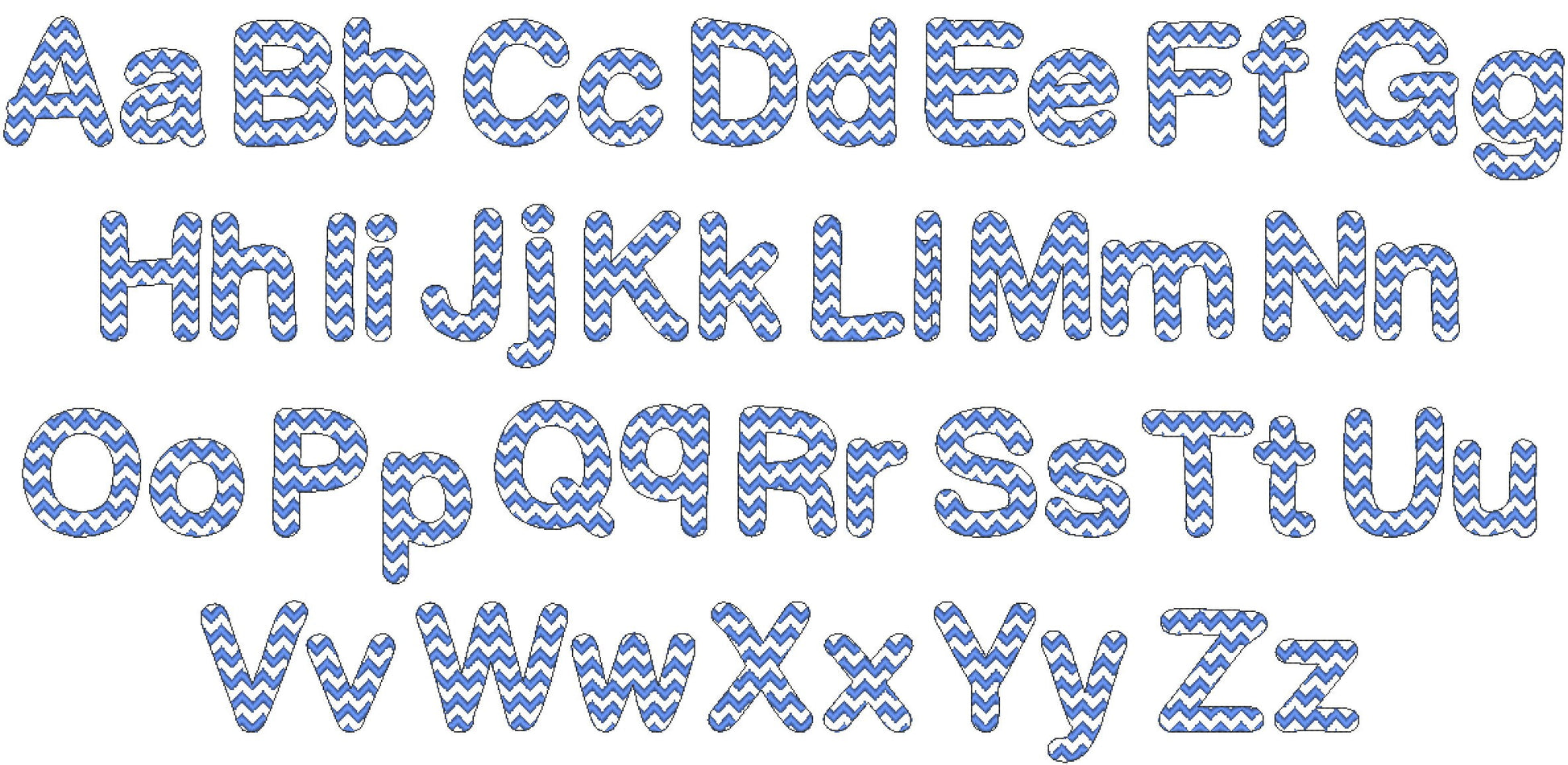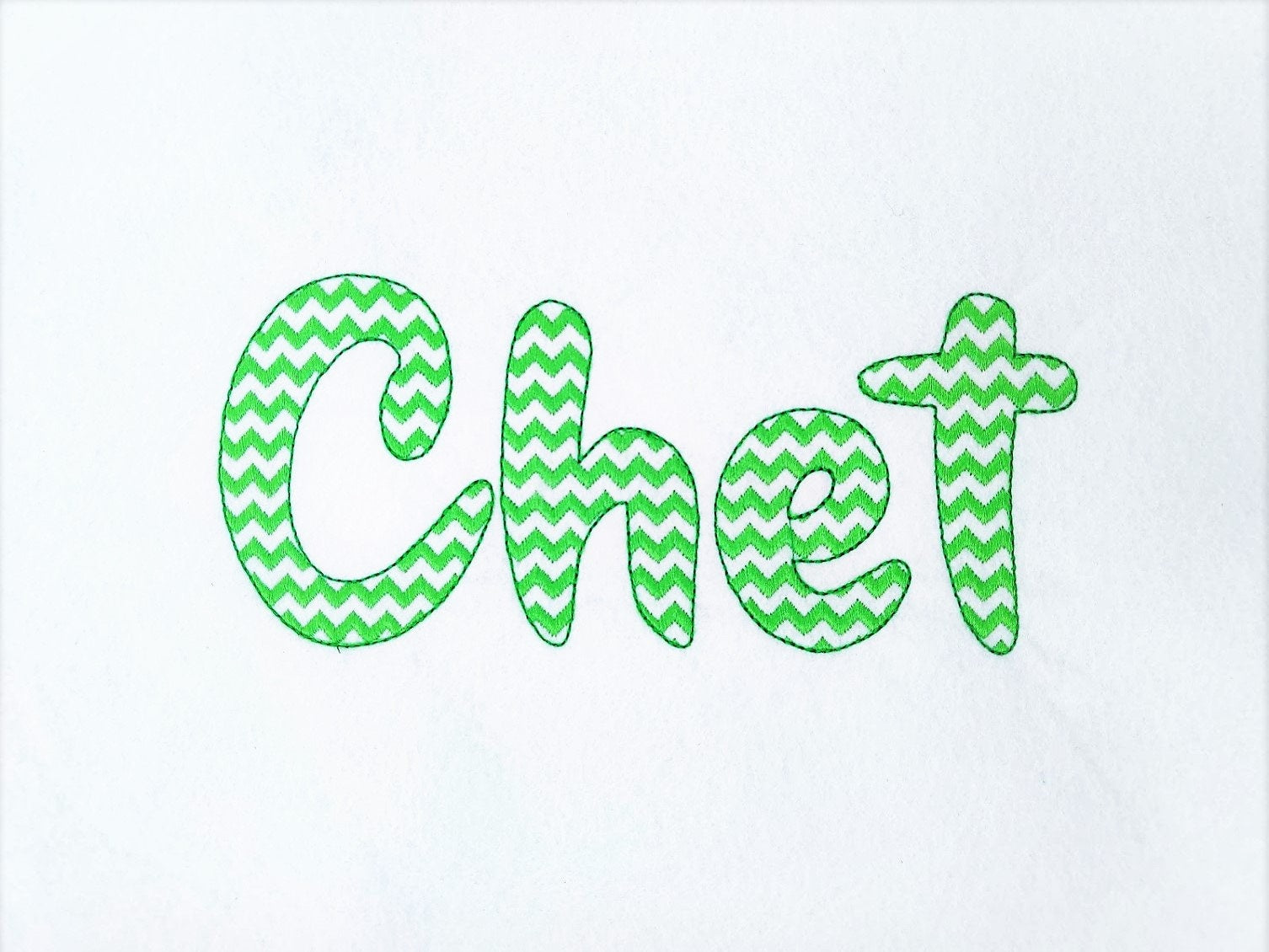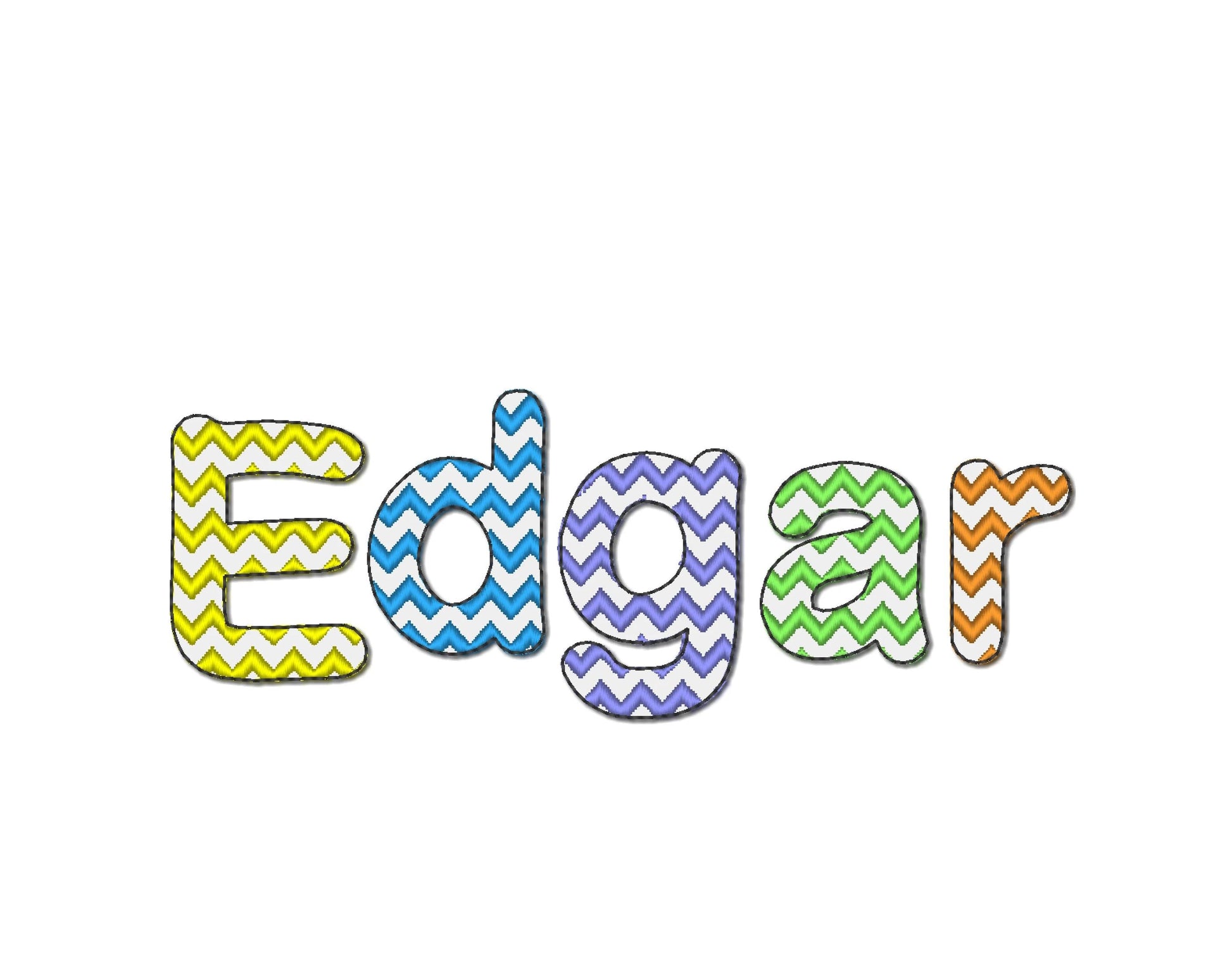
Chevron Ric Rac Font Edgar
Uppercase and lowercase letters in five sizes: 1.2, 1.6, 2.2, 2.8 and 3.7 inches. A quick stitch: the chevron lines are part of the embroidery and the fabric shows through.
- Chevron ric rac sketch font
- Uppercase and lowercase letters
- 5 sizes, 1.2 to 3.7 in